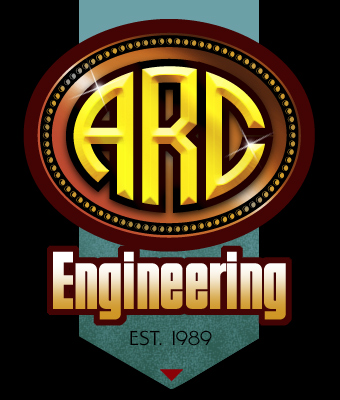
Monogram Oval Released
This striking font set from John Davis makes it easy to create quick, effective logos. Set features 3 different fonts to create eyecatching 3 letter monograms. Click here to learn how. Includes LHF Monogram Oval Frames font with 26 different decorative frames to complete your design.